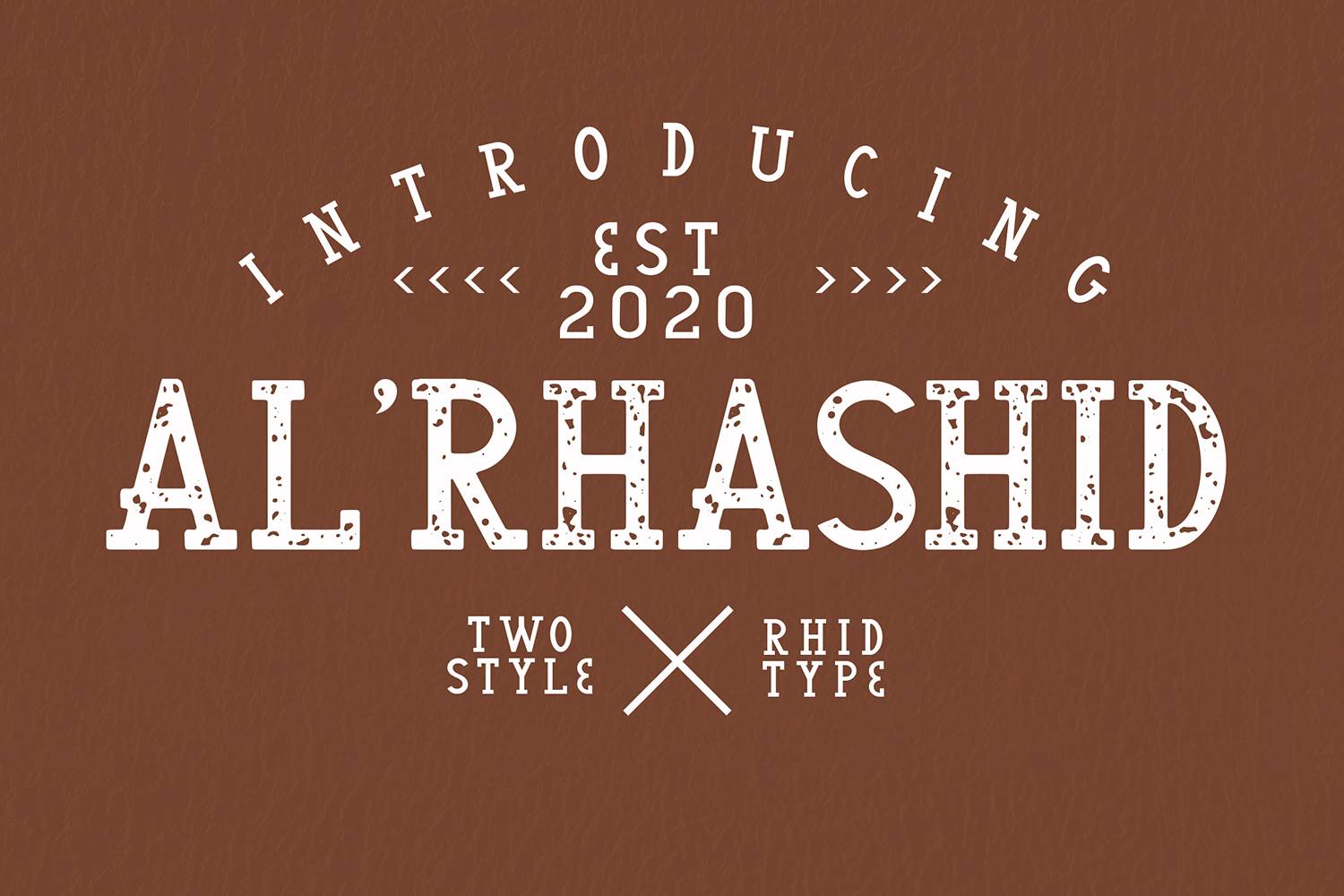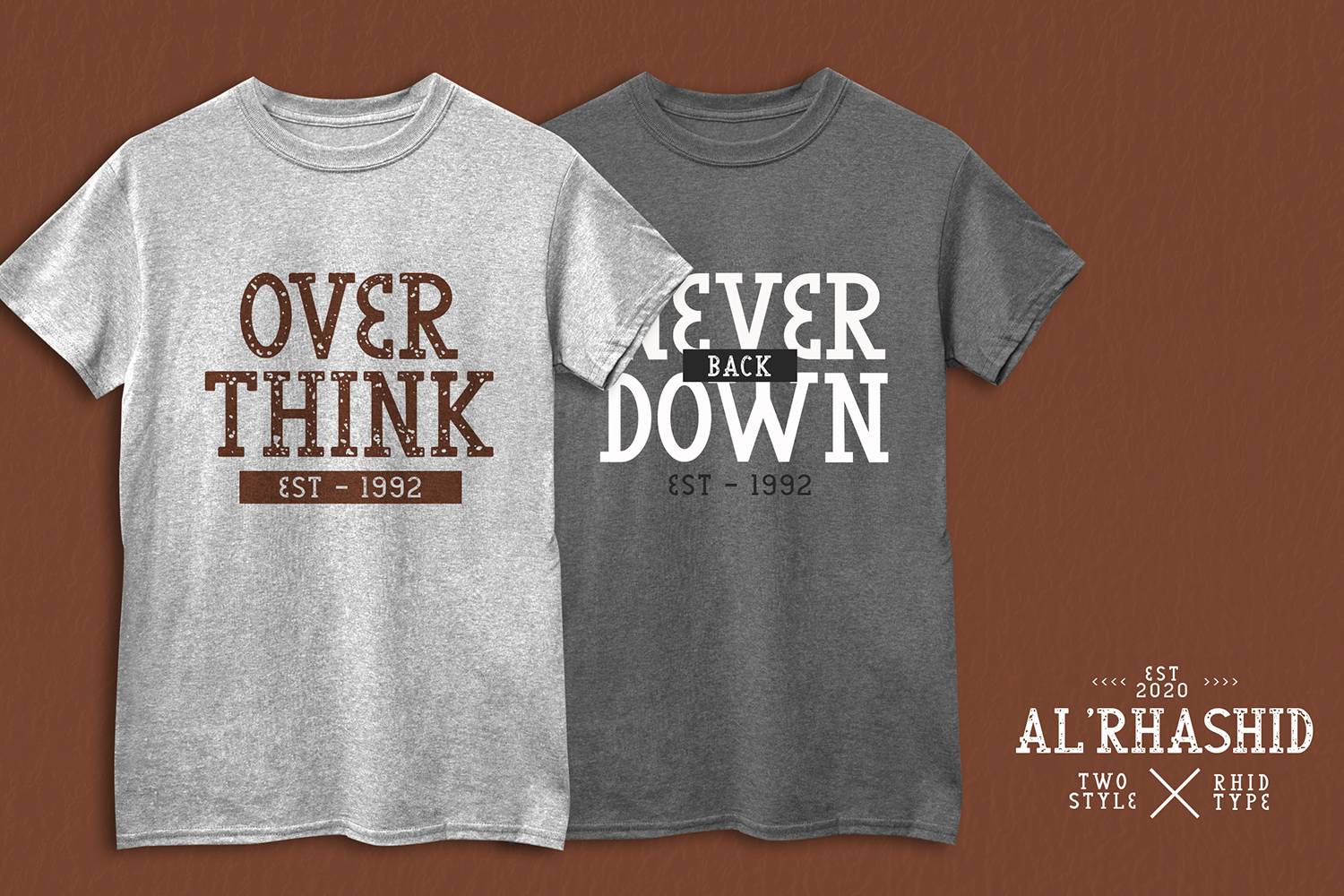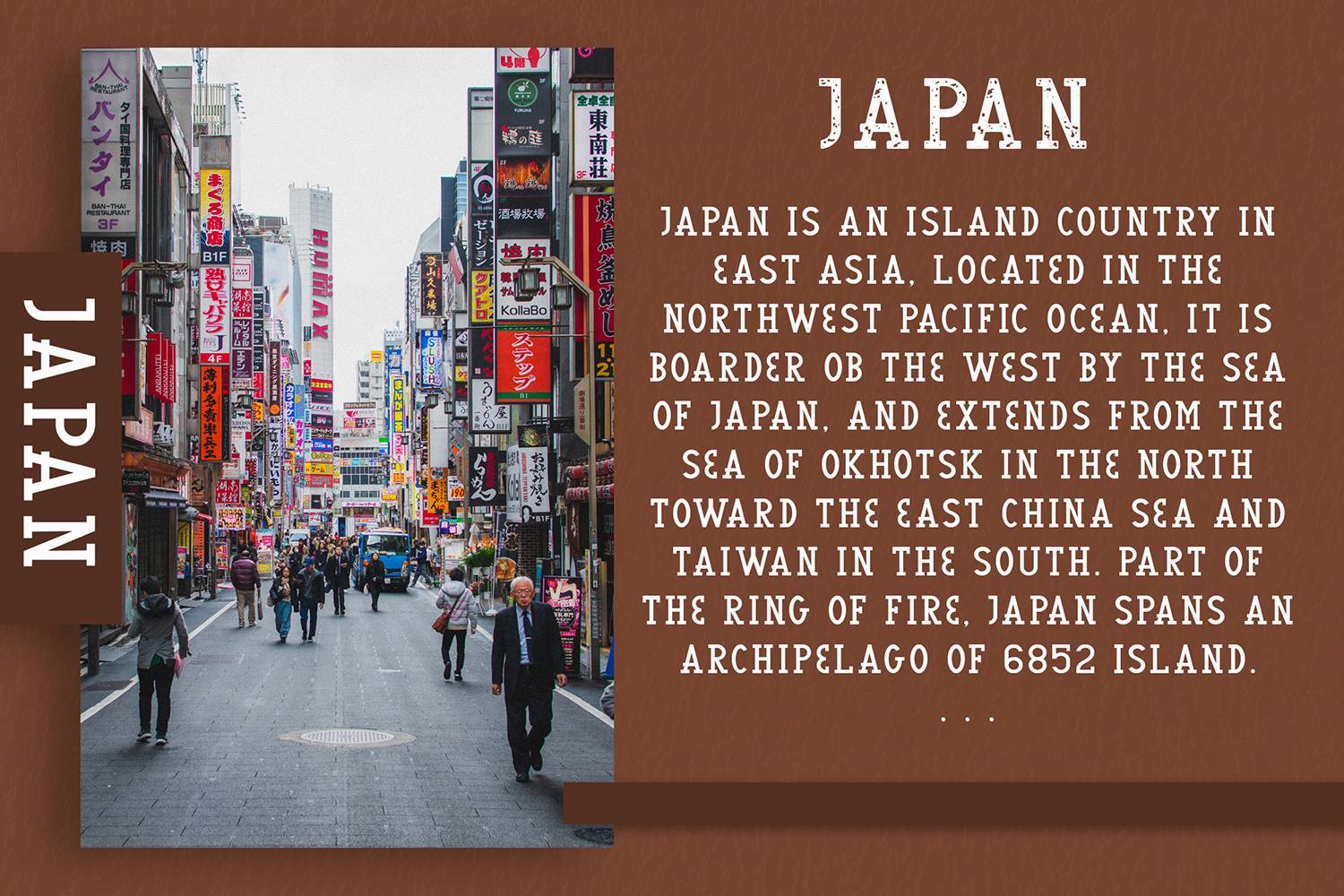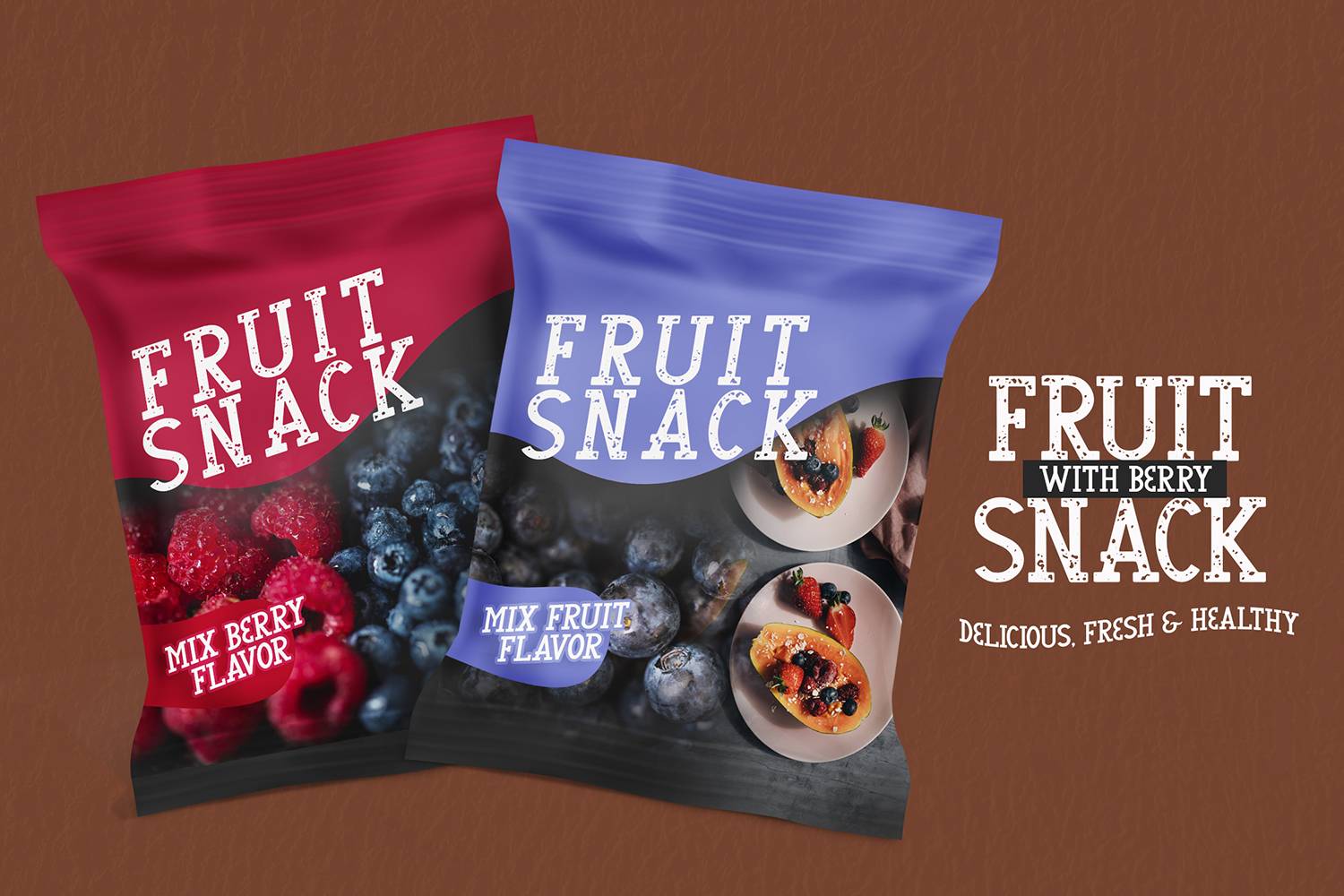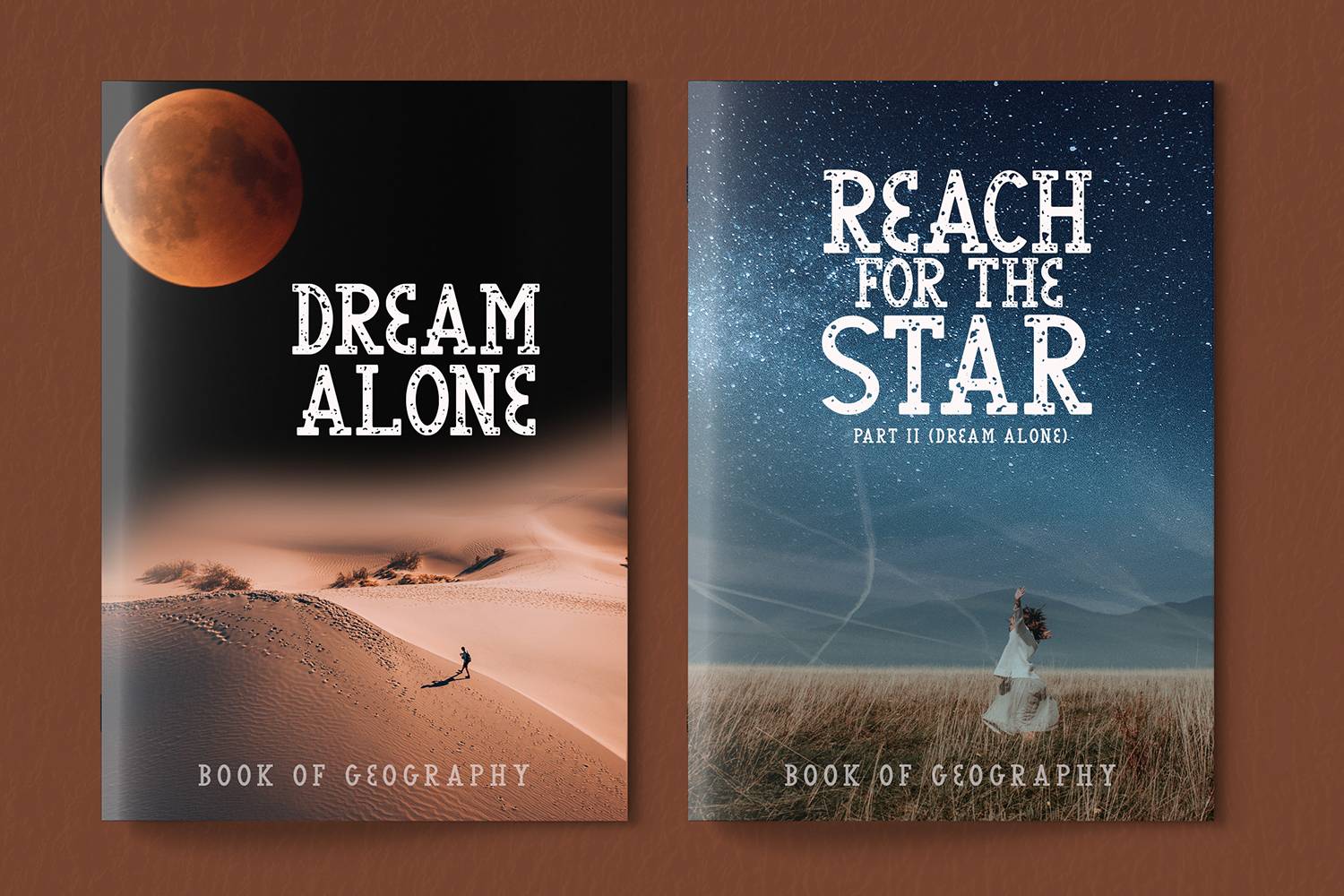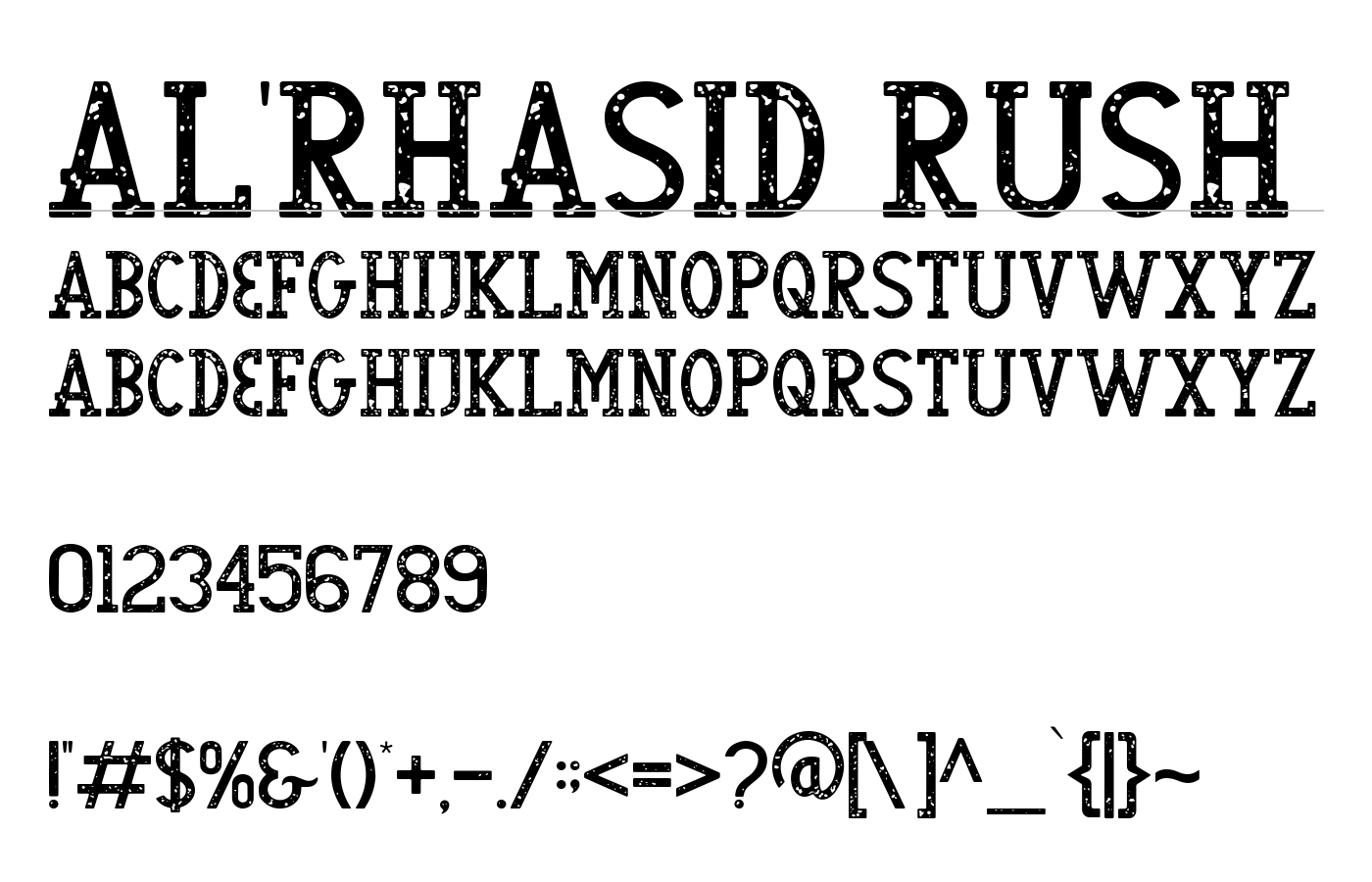
Al’rhashid is a bold slab serif font with a strong vintage character, featuring heavy blocky serifs and a textured, distressed look that adds a rugged, worn feel. Its sturdy, condensed letterforms and all-uppercase style make it ideal for attention-grabbing headlines, logos, or packaging that need a bold, industrial, or western-inspired aesthetic. This font works well where a sense of toughness and nostalgia is desired, bringing personality and impact to designs.
Al’rhashid Font
About Al’rhashid Font
| Font family | Al’rhashid Font |
| Category | Slab-serif |
| Release date | 2020-12-06 |
| Designer | REPI HILMANA |